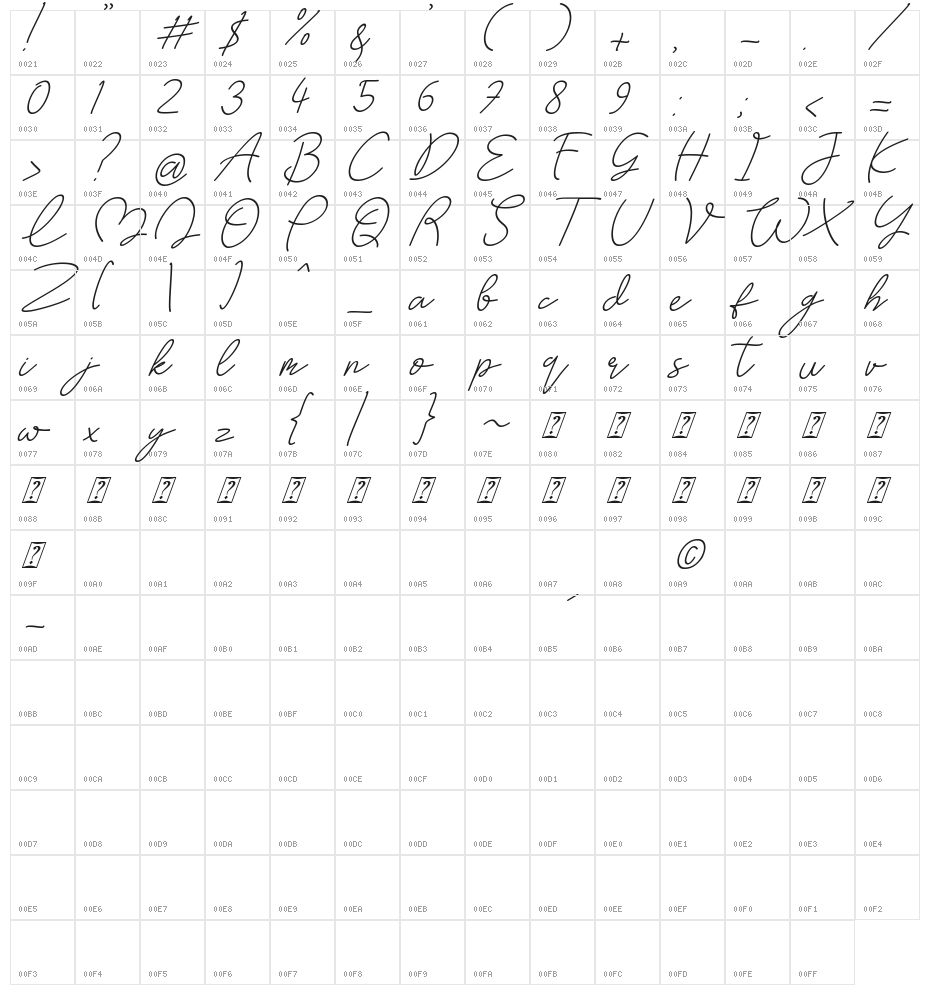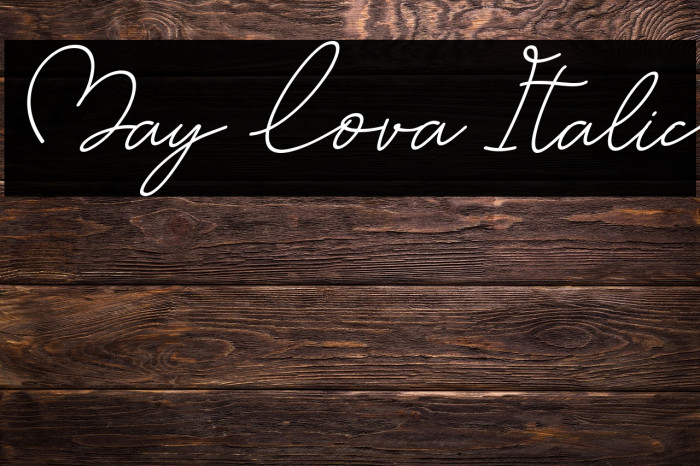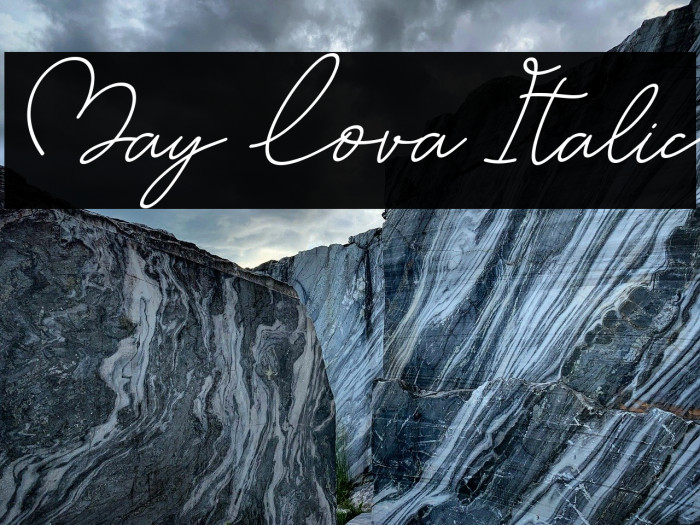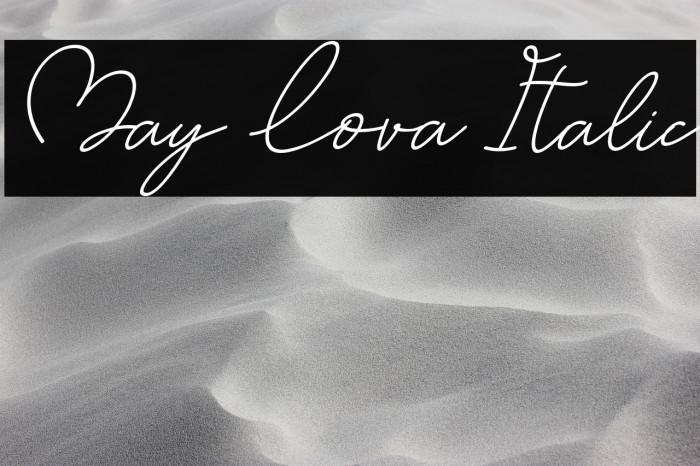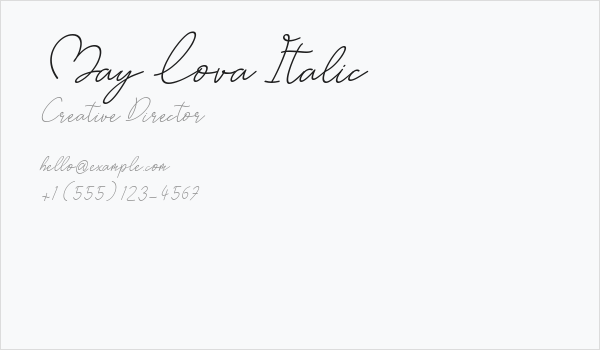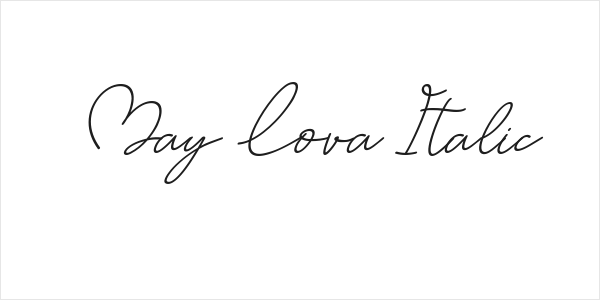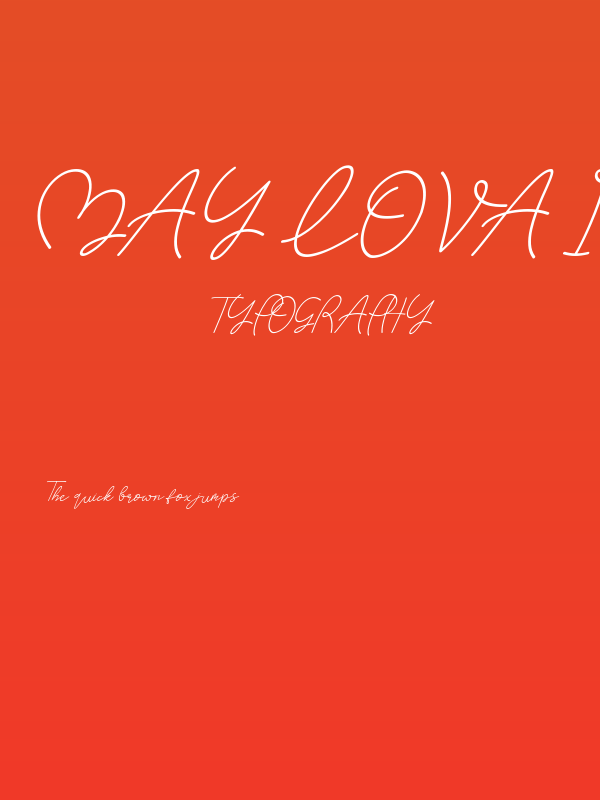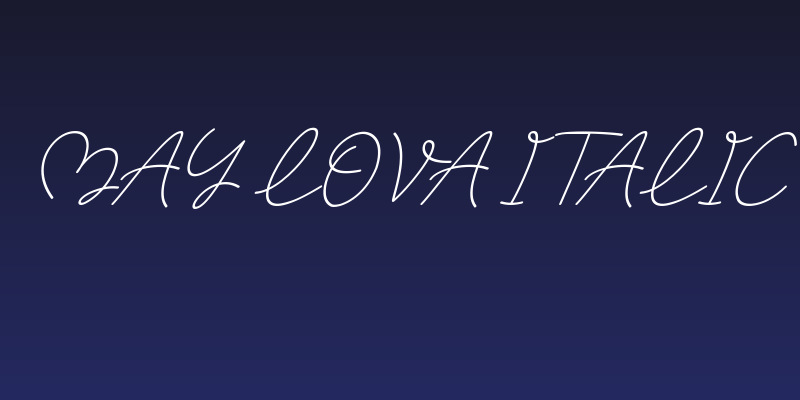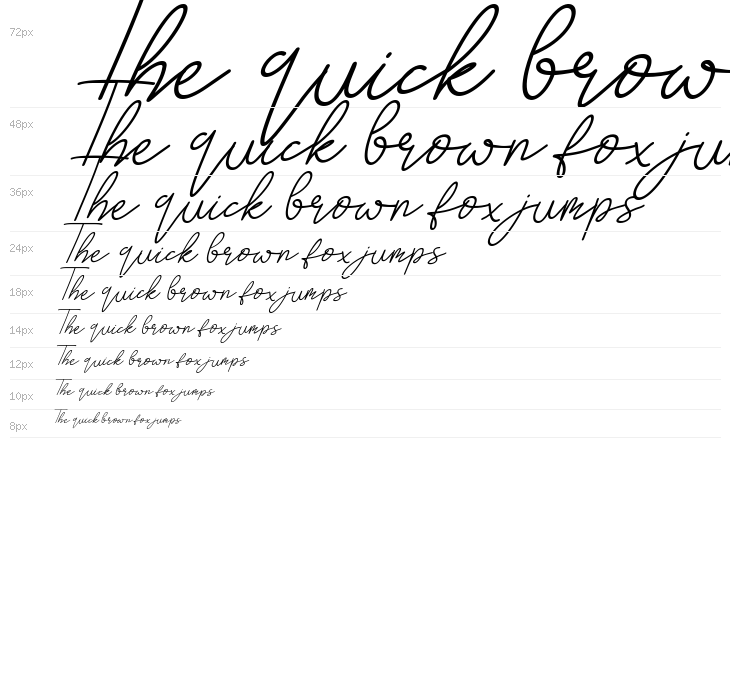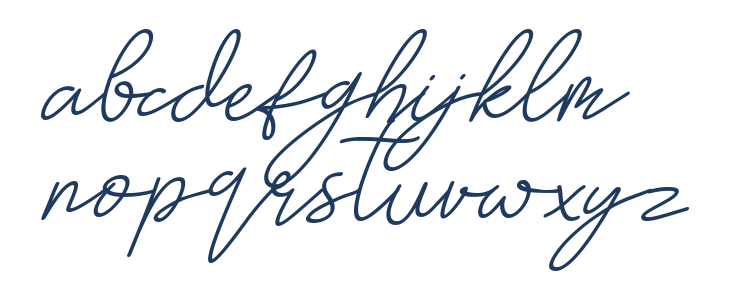
May Lova Italic Font
May Lova Italic Description
This font features an elegant and flowing script style, characterized by its smooth, connected strokes and a slight slant to the right, giving it a dynamic and graceful appearance. The uppercase letters are tall and slender, with distinctive loops and curves that add a touch of sophistication. The lowercase letters maintain a consistent flow, with rounded forms and gentle connections between characters. The numerals are clear and legible, matching the overall cursive style. Special characters are designed with the same fluidity, ensuring a cohesive look across all text. This font exudes a sense of elegance and is perfect for adding a personal touch to any design.
| Proposed Projects | Ideal for wedding invitations, greeting cards, personal branding, and elegant packaging designs. |